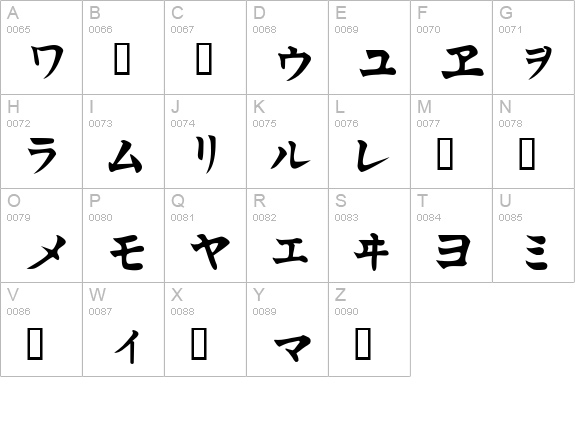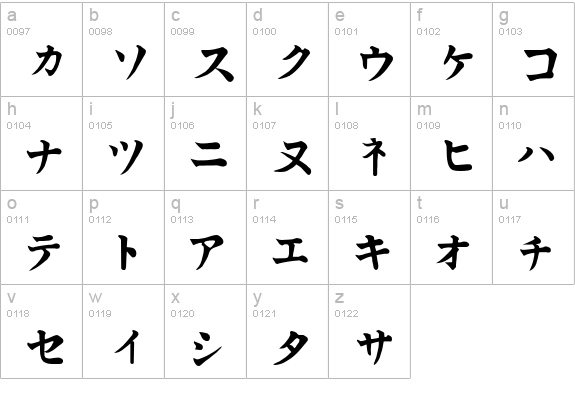
The Kata Kana font is a beautifully crafted typeface that showcases the elegance and simplicity of the Japanese writing system. With its clean lines and distinct characters, this font is perfect for any project that requires a touch of Eastern inspiration. Designed with precision and attention to detail, Kata Kana will add a unique flair to your designs, whether it's for a logo, a website, or a printed piece. Its sleek and modern appearance makes it suitable for both digital and print media, ensuring that your content stands out from the crowd. One of the best features of the Kata Kana font is that it is freely available to download at FontsMarket.com. This means that you can use this font without any restrictions, allowing you to express your creativity without limitations. Whether you're a designer, a student, or anyone in need of a high-quality Japanese font, Kata Kana is the perfect choice. Not only does the Kata Kana font offer a wide range of characters, including both hiragana and katakana, but it also provides excellent legibility at any size. The characters are carefully designed to ensure readability, making it a versatile font that can be used for both small and large text. With its clean and crisp lines, the Kata Kana font is also optimized for screen display, ensuring that your digital content looks just as stunning as it does in print. This makes it a reliable choice for websites, apps, and other digital platforms. In conclusion, the Kata Kana font is a must-have for anyone looking to incorporate Japanese typography into their designs. Its sleek and modern appearance, combined with its excellent legibility and versatility, makes it an ideal choice for a wide range of projects. And the best part? It's freely available to download at FontsMarket.com, allowing you to unleash your creativity without any restrictions. So go ahead, download the Kata Kana font today and add a touch of Eastern elegance to your designs.